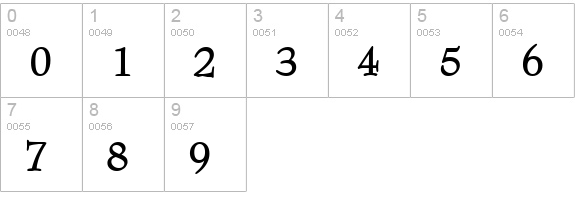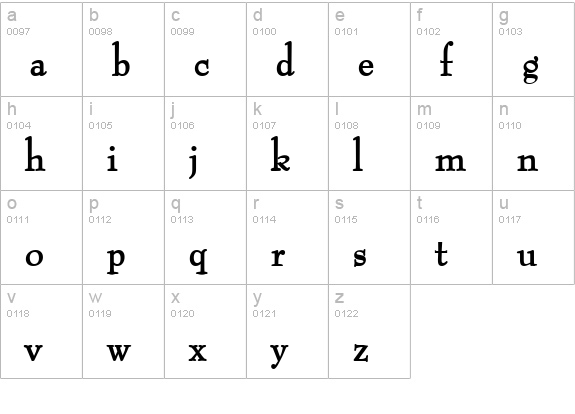
Bernhart Bold Font Details
Bernhart Bold is a strong, high-contrast variant in the Bernhart typeface family \xE2\x80\x94 well suited to headlines, attention-grabbing titles, and strong calls-to-action.
Bernhart Bold is a versatile and eye-catching typeface that exudes confidence and modernity. With its bold and striking design, this font is perfect for grabbing attention and making a statement in any project. The strong and clean lines of Bernhart Bold make it ideal for headlines, posters, logos, and branding materials. What sets Bernhart Bold apart is not only its boldness, but also its readability and versatility. It is easy to read even at smaller sizes, making it a great choice for body text as well as display purposes. Whether you are designing a website, creating a brochure, or working on a packaging design, Bernhart Bold is sure to make a bold impact. And the best part? Bernhart Bold is available for free download at FontsMarket.com. So you can easily access this stylish and impactful font for all your design needs without breaking the bank. Don't miss out on the opportunity to enhance your projects with the bold elegance of Bernhart Bold!